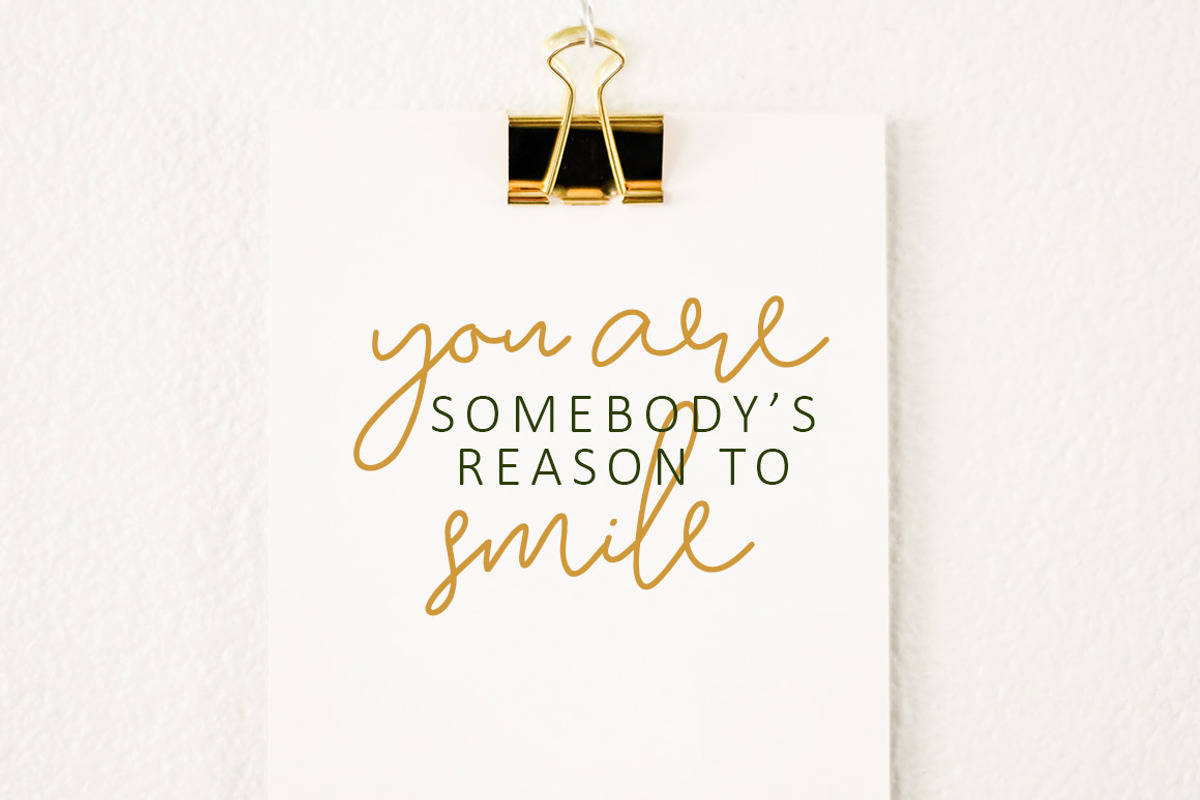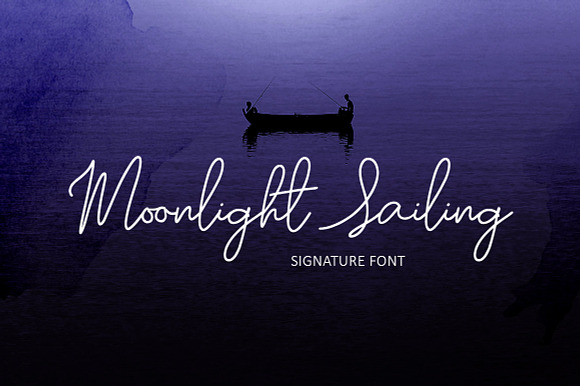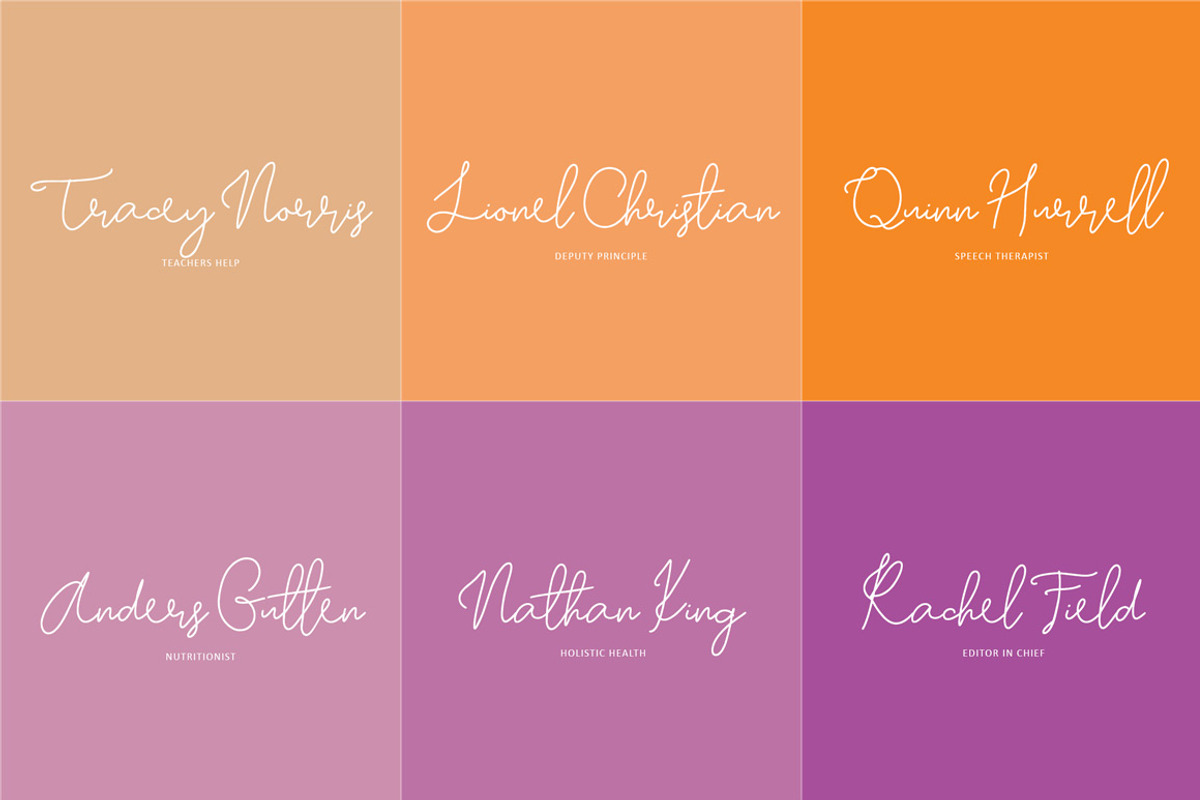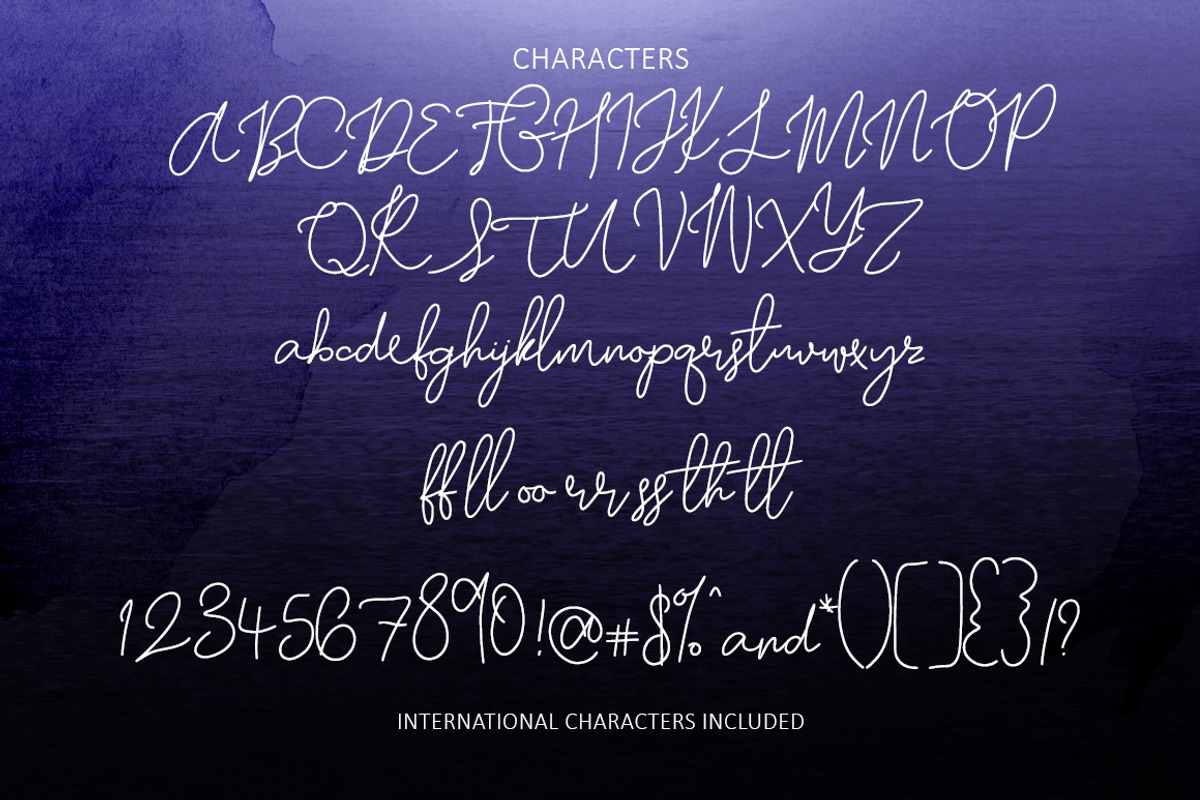
Moonlight Sailing Script Font
Introducing Moonlight Sailing Script font
A Gorgeous easy hand written font with double ligatures.
- International characters are included.
Moonlight Sailing Script Font by Creativeqube Design fits naturally into Branding, posters, packaging, typography.